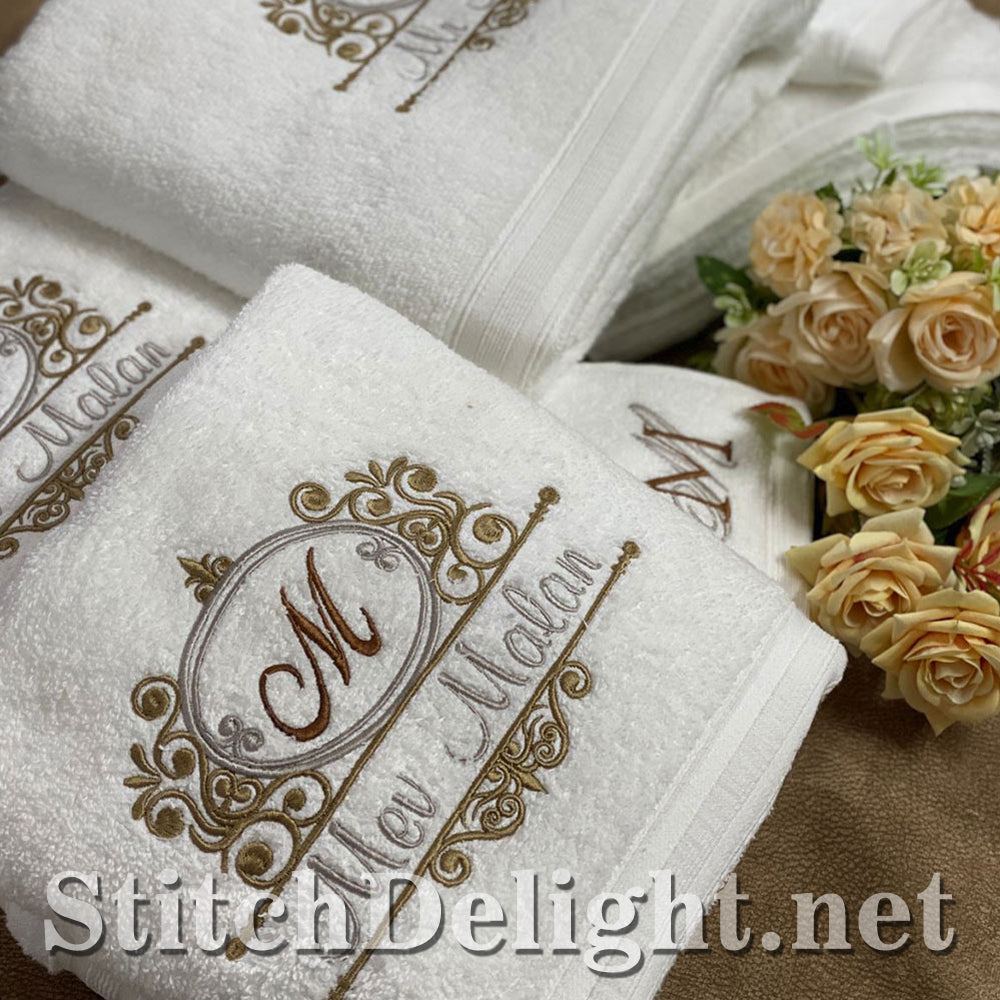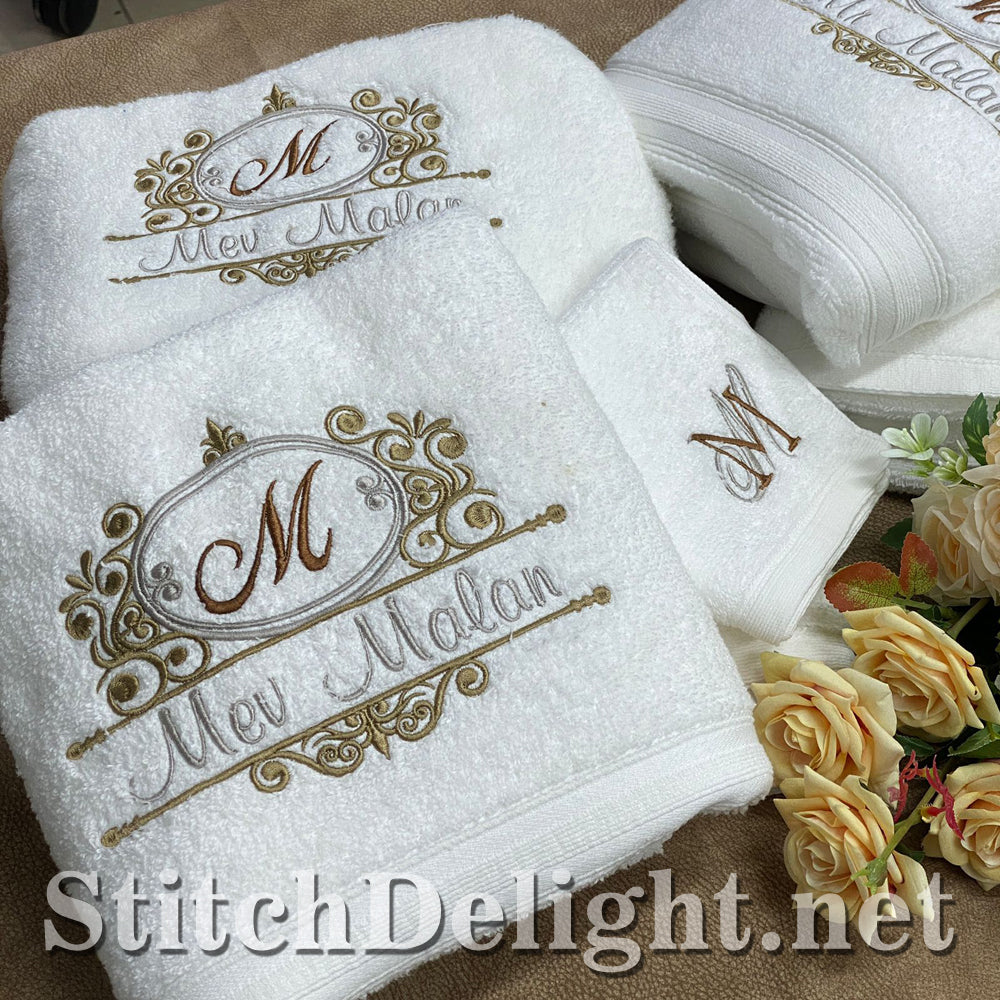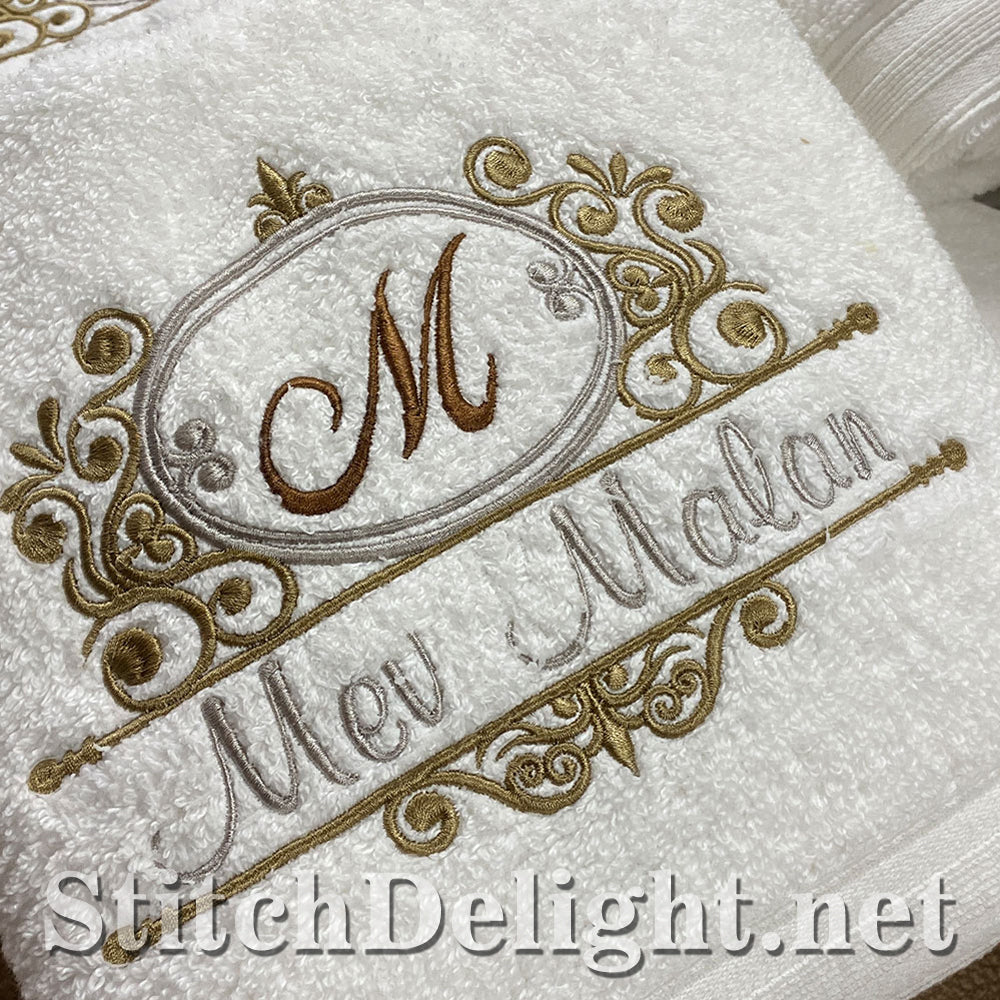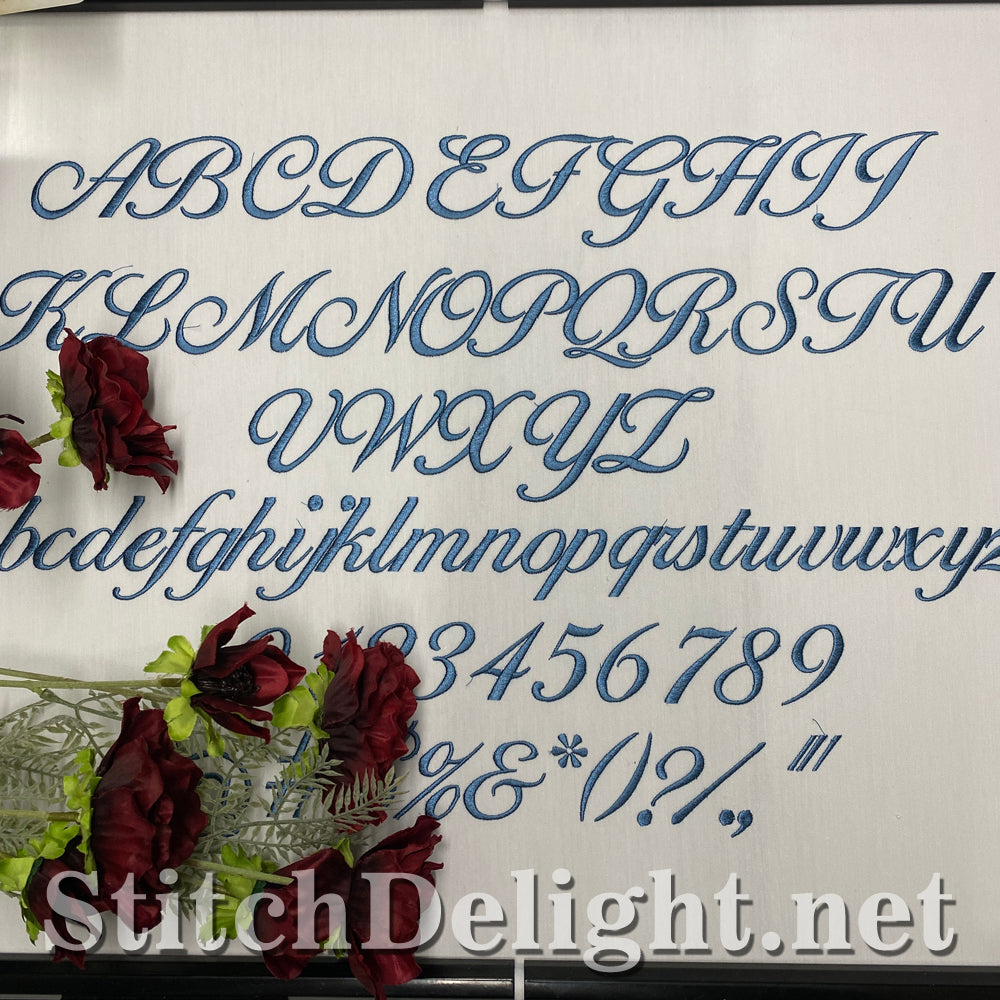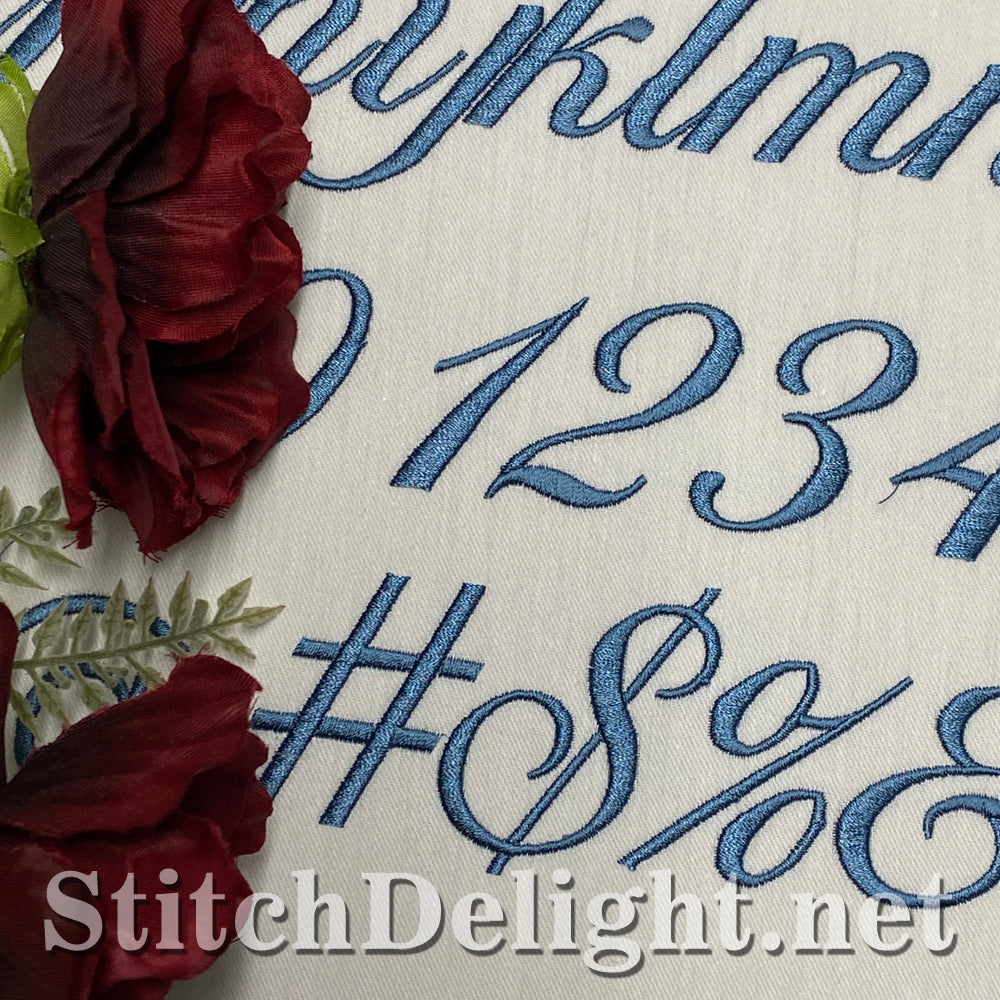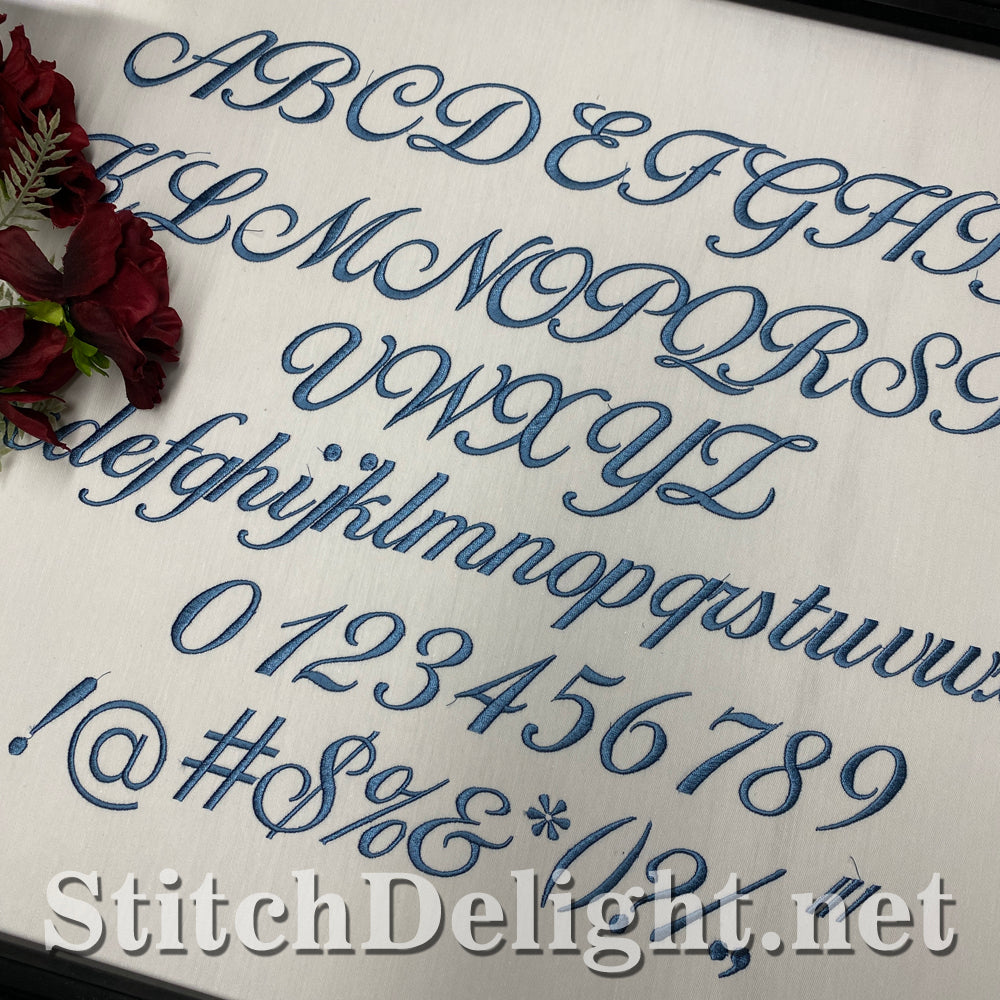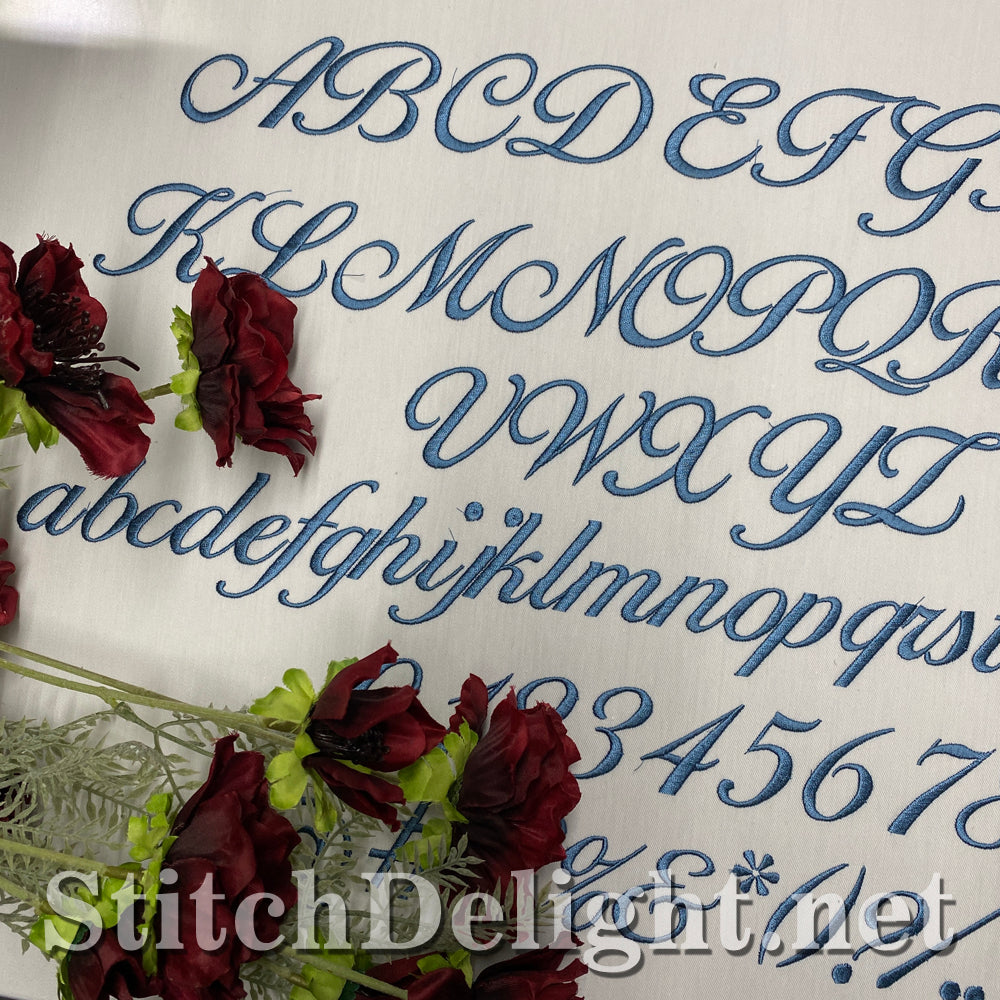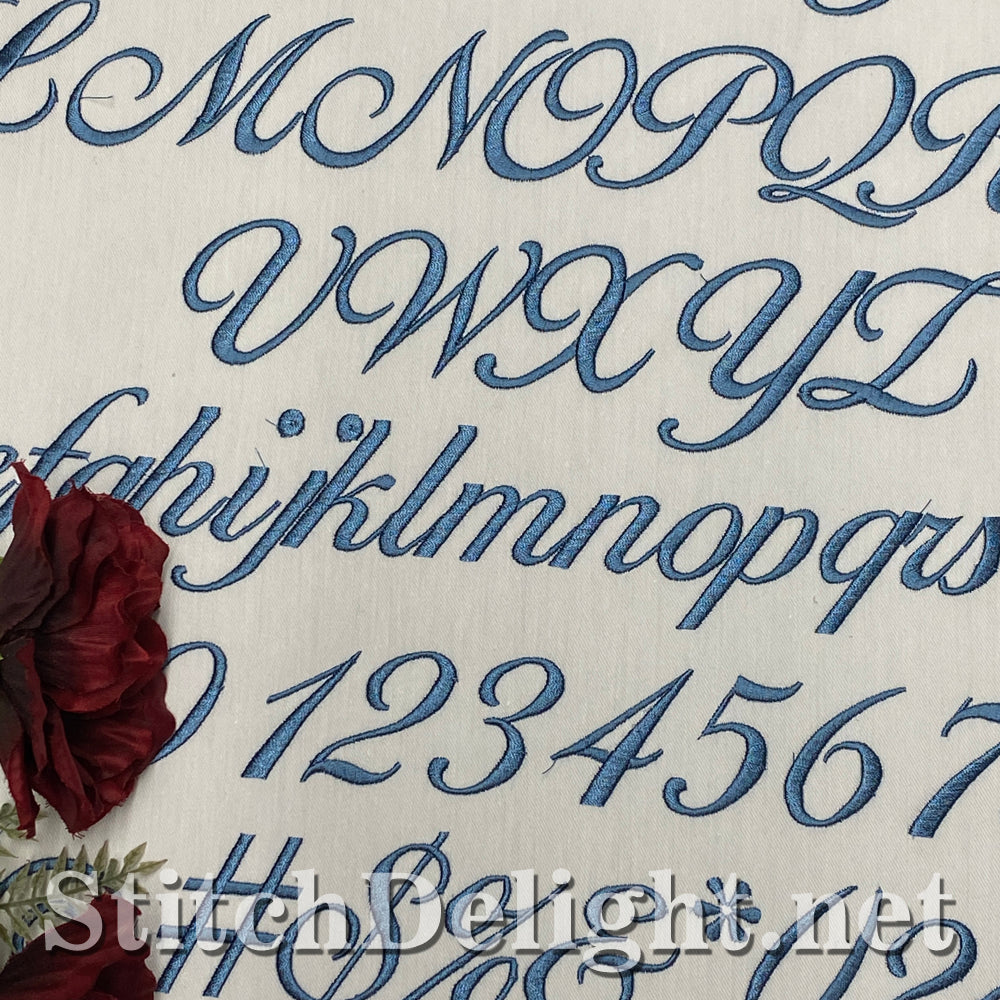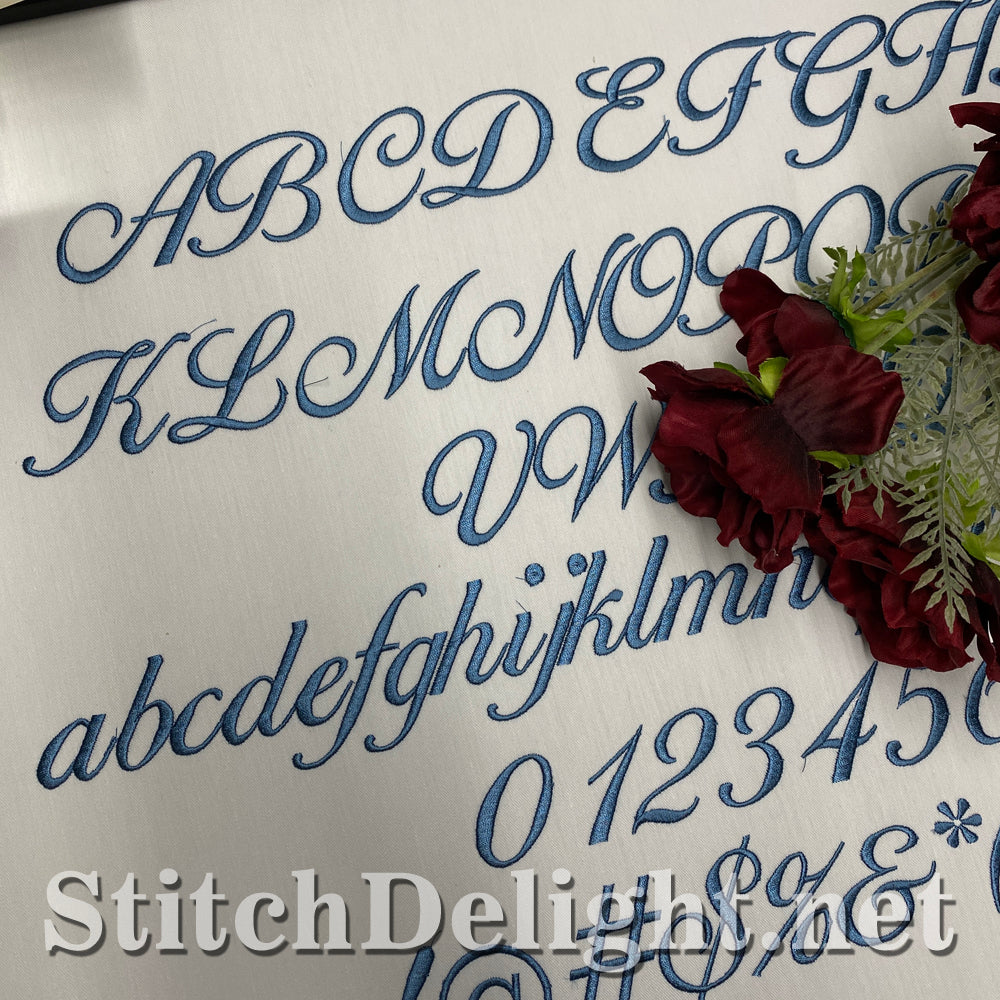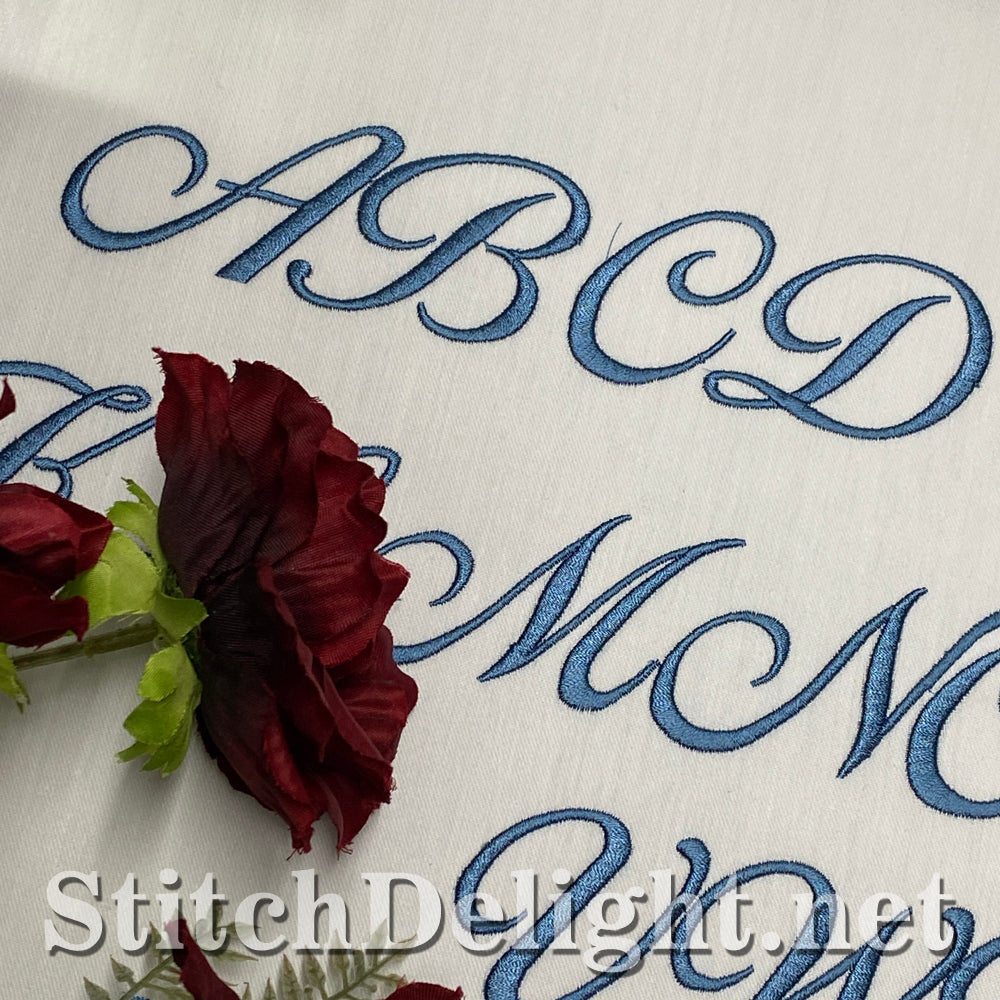
This font has an average height of 0.9"(lowercase) and 1.8"(uppercase) - Checkout SDS5407 for a stitched example where we used the font on towels as a wedding gift. *BX format included.